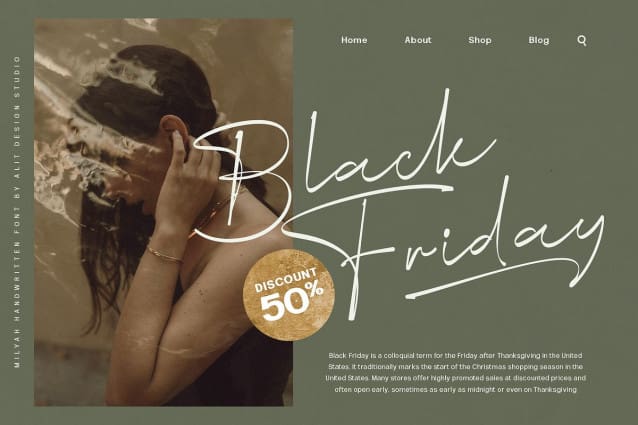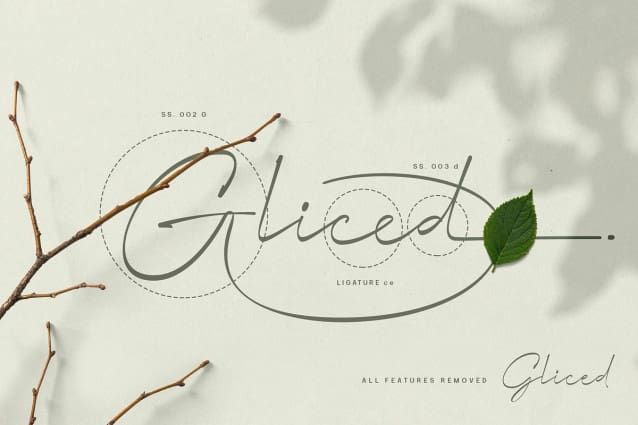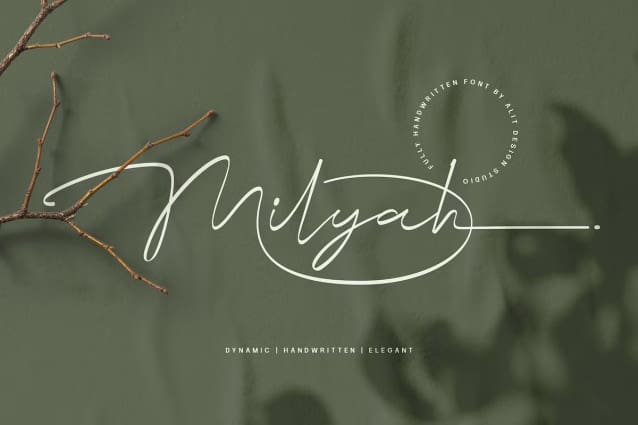
Milyah Signature Font
Milyah Signature Font: Inspired by spontaneous and dynamic signature strokes with ink texture that makes MilyahSignature Script look real. MilyahSignature Script font looks unique and charming, making designs using MilyahSignature Script look more outstanding and cool. MilyahSignature Script font is perfect for your new font collection on your computer, tablet and smartphone to create unique designs or lettering.
The Milyah Signature Script font is perfect for magazine cover designs, brochures, flyers. Instagram ads, Canva Design and so on with unique and modern concepts. besides that this font is very easy to use both in design and non-design programs because everything changes and glyphs are supported by Unicode (PUA).
The Milyah Signature Script contains 827 glyphs with many unique and interesting alternative options.